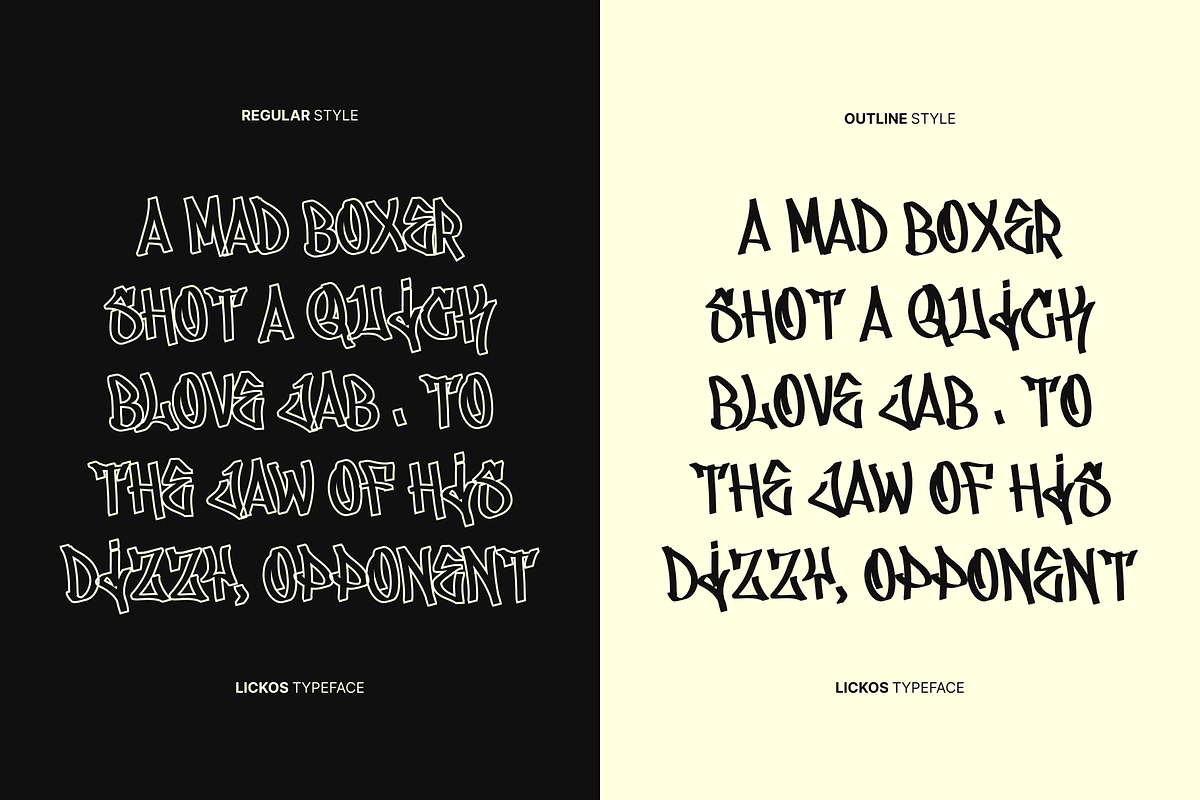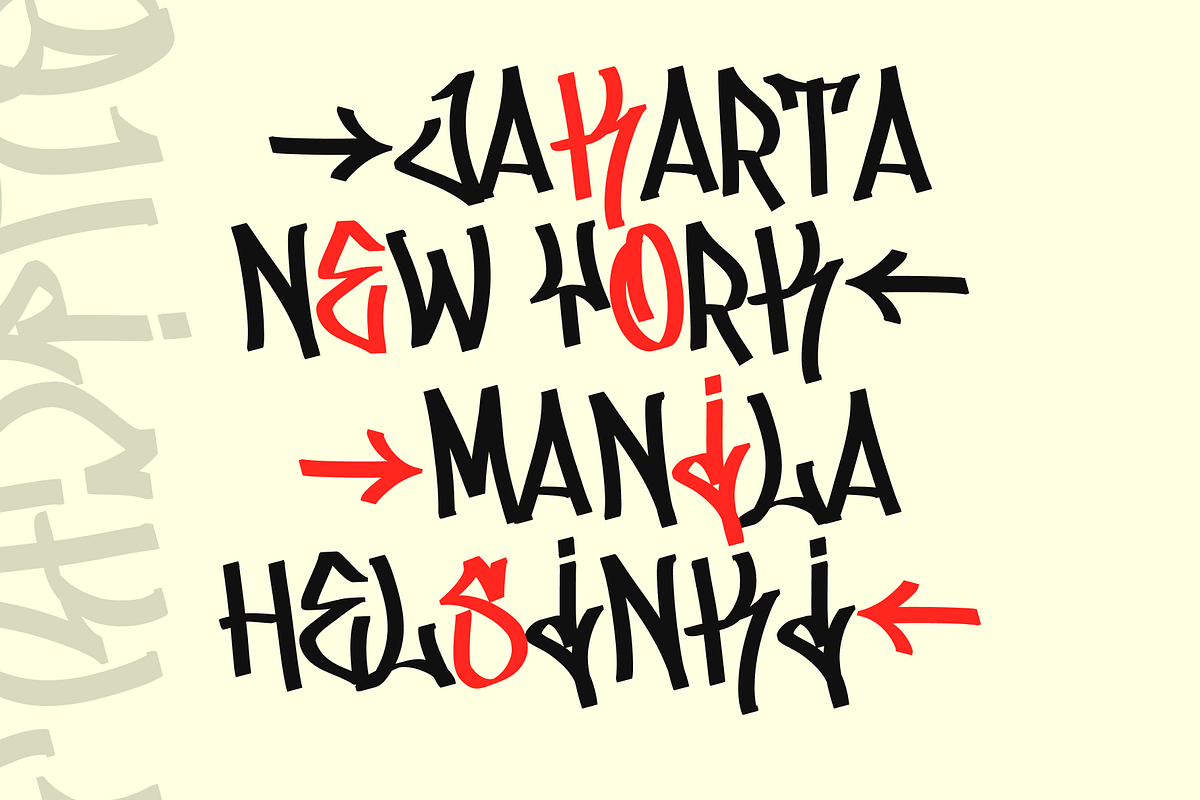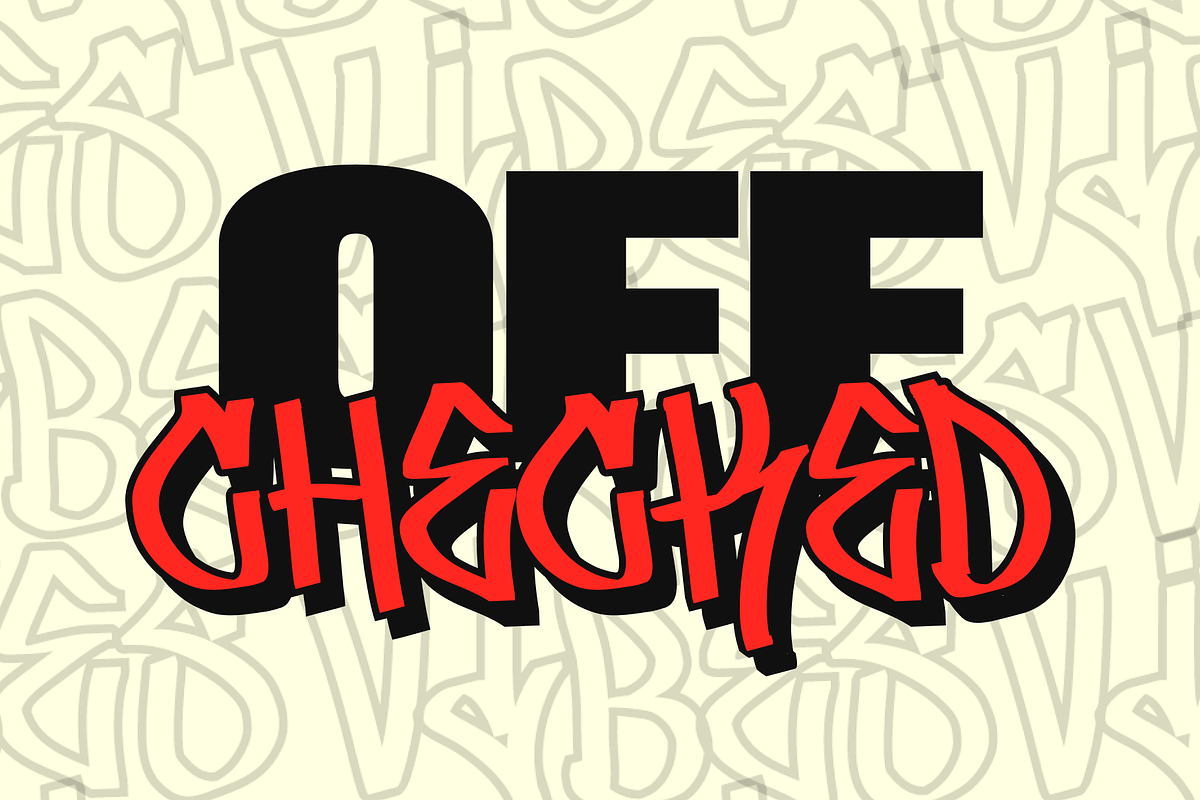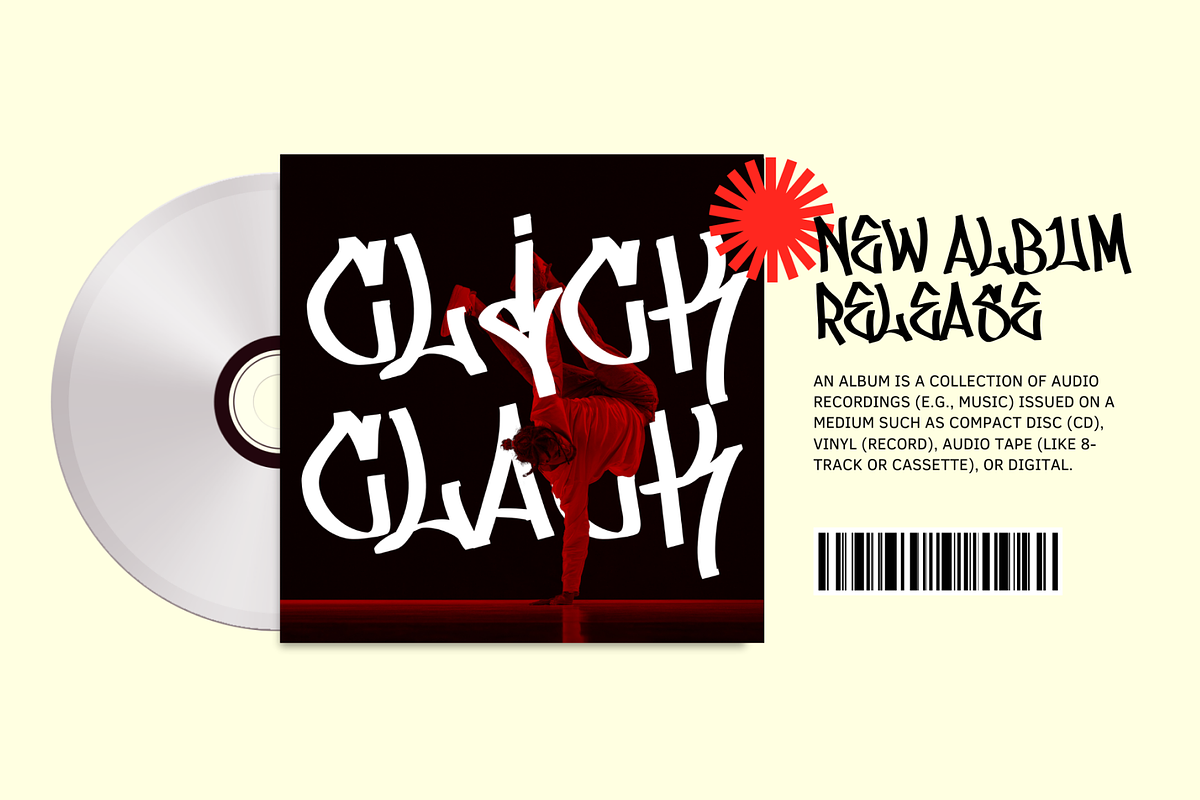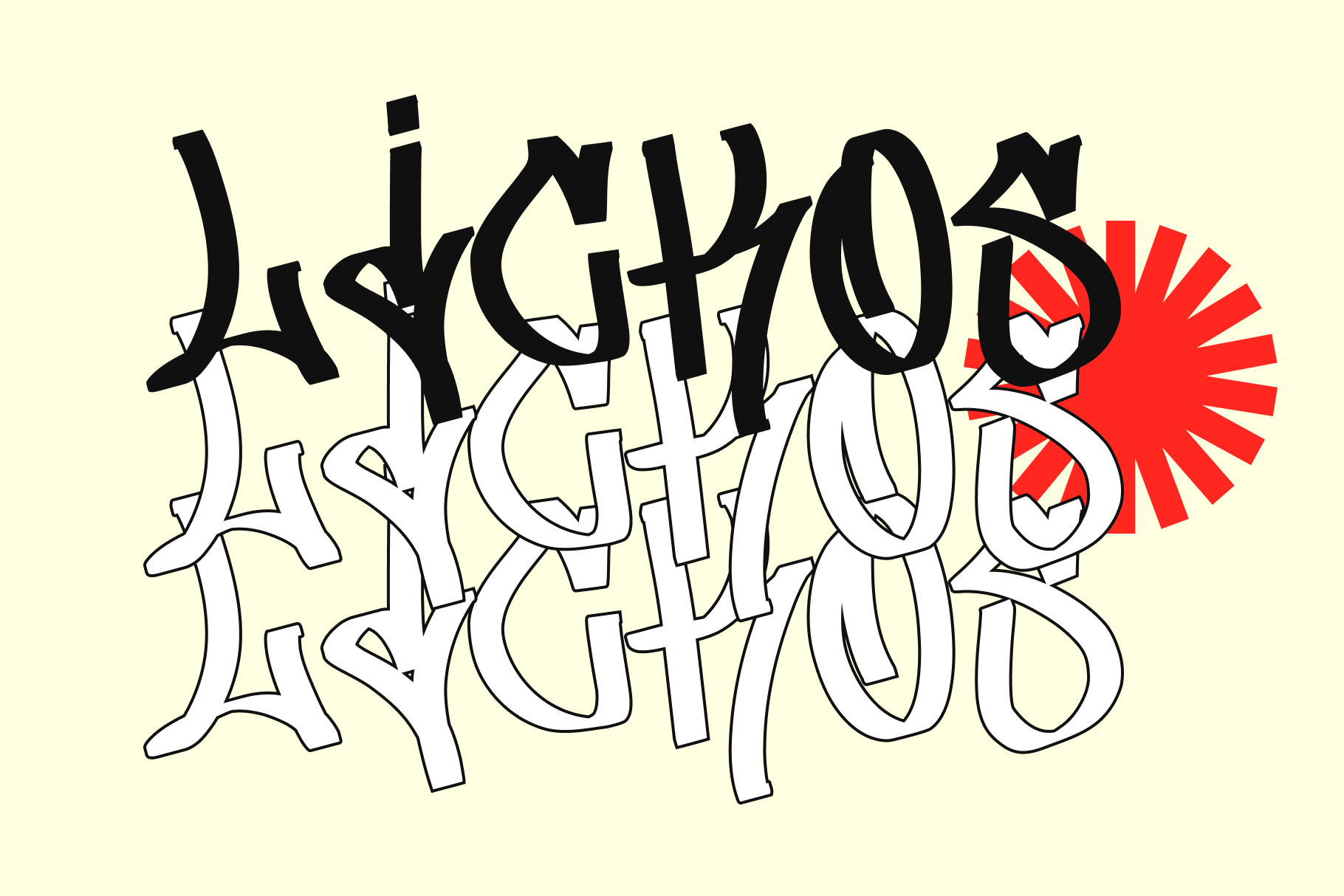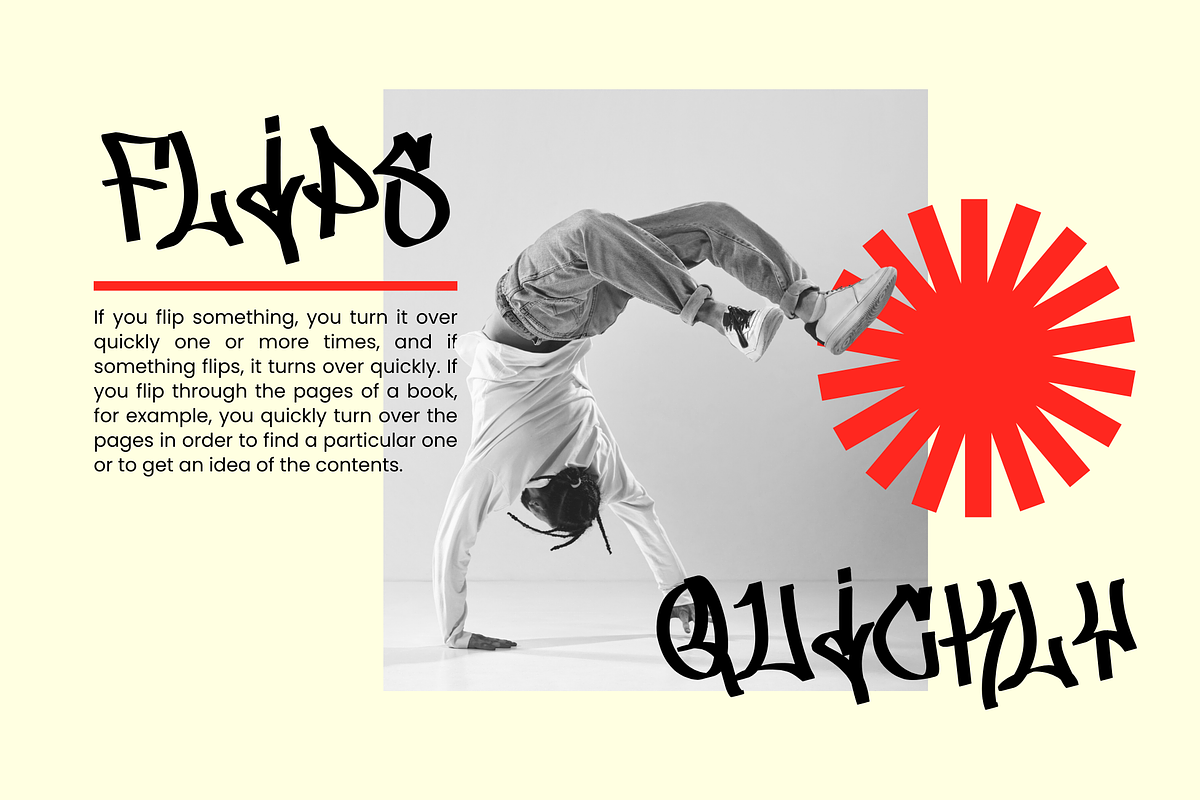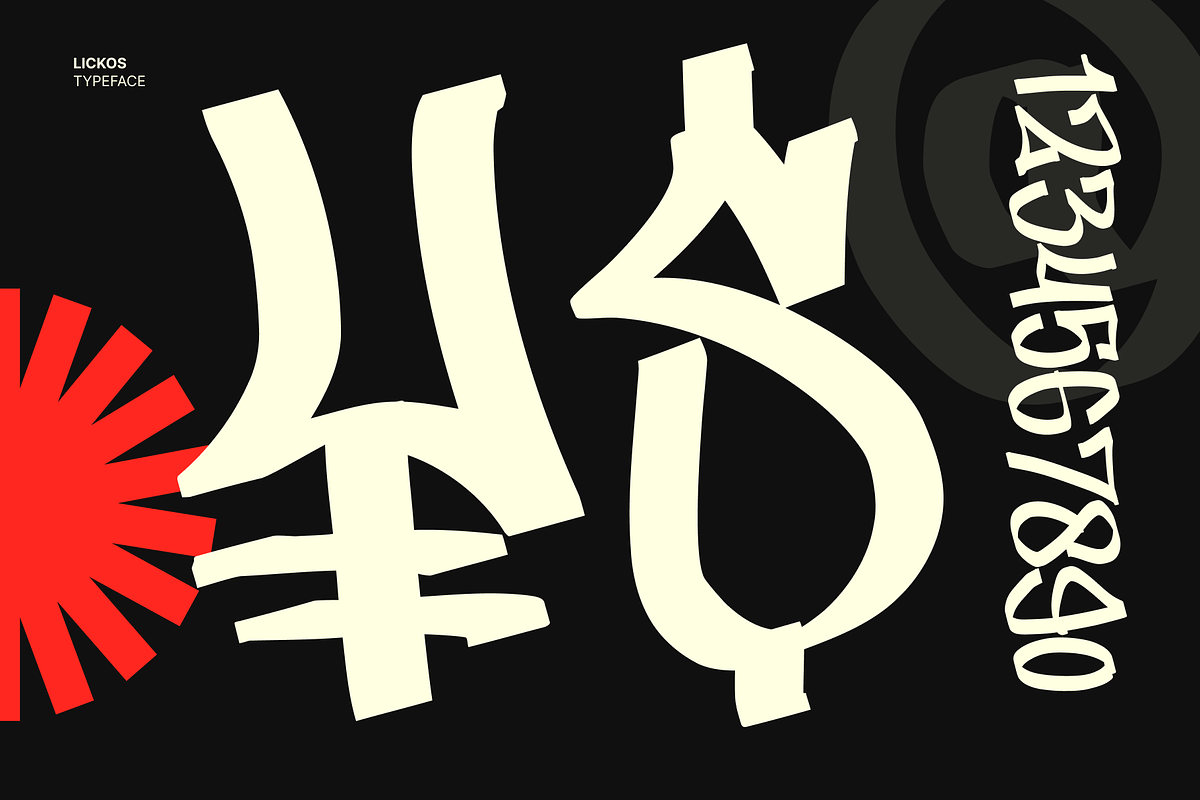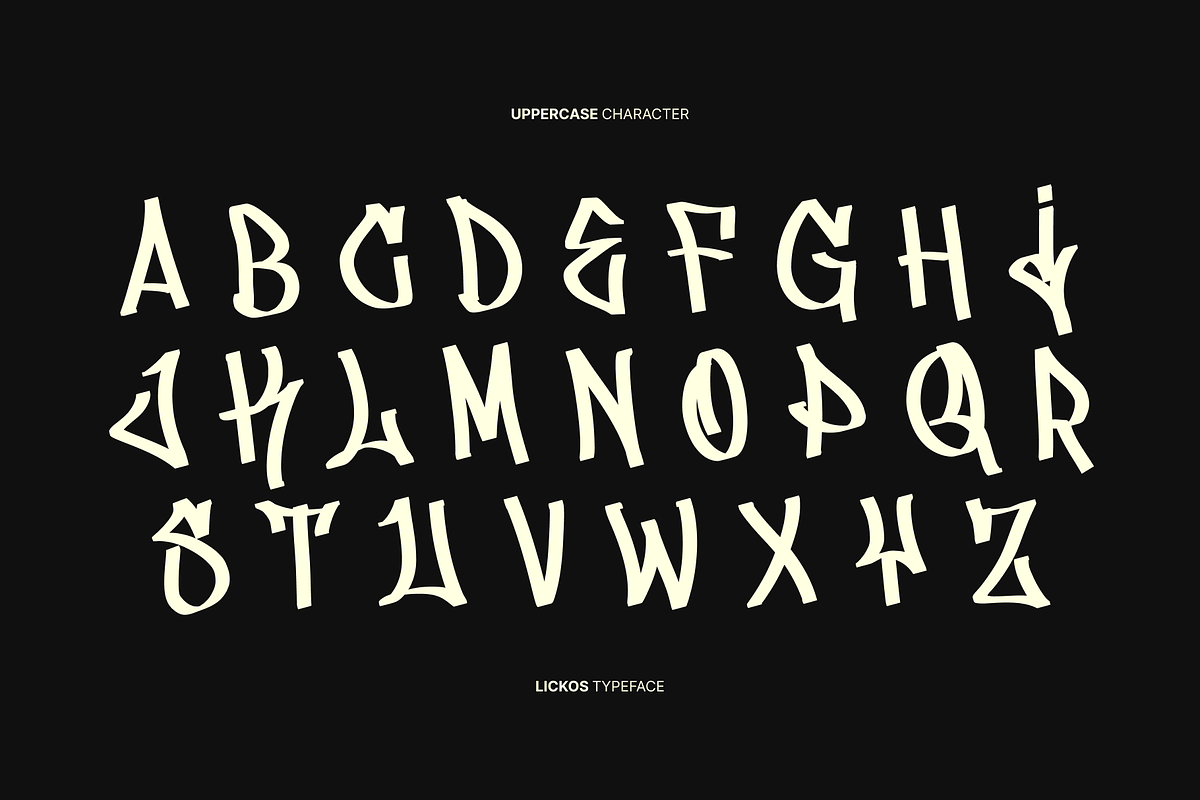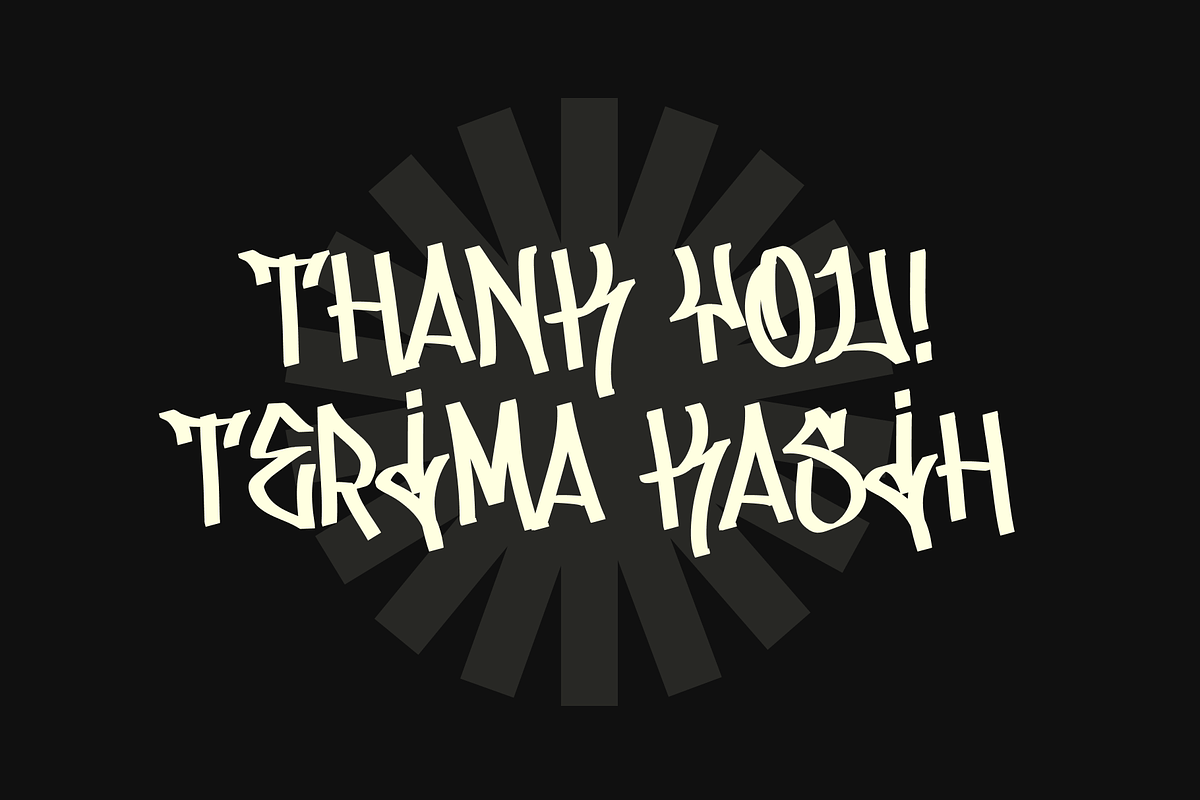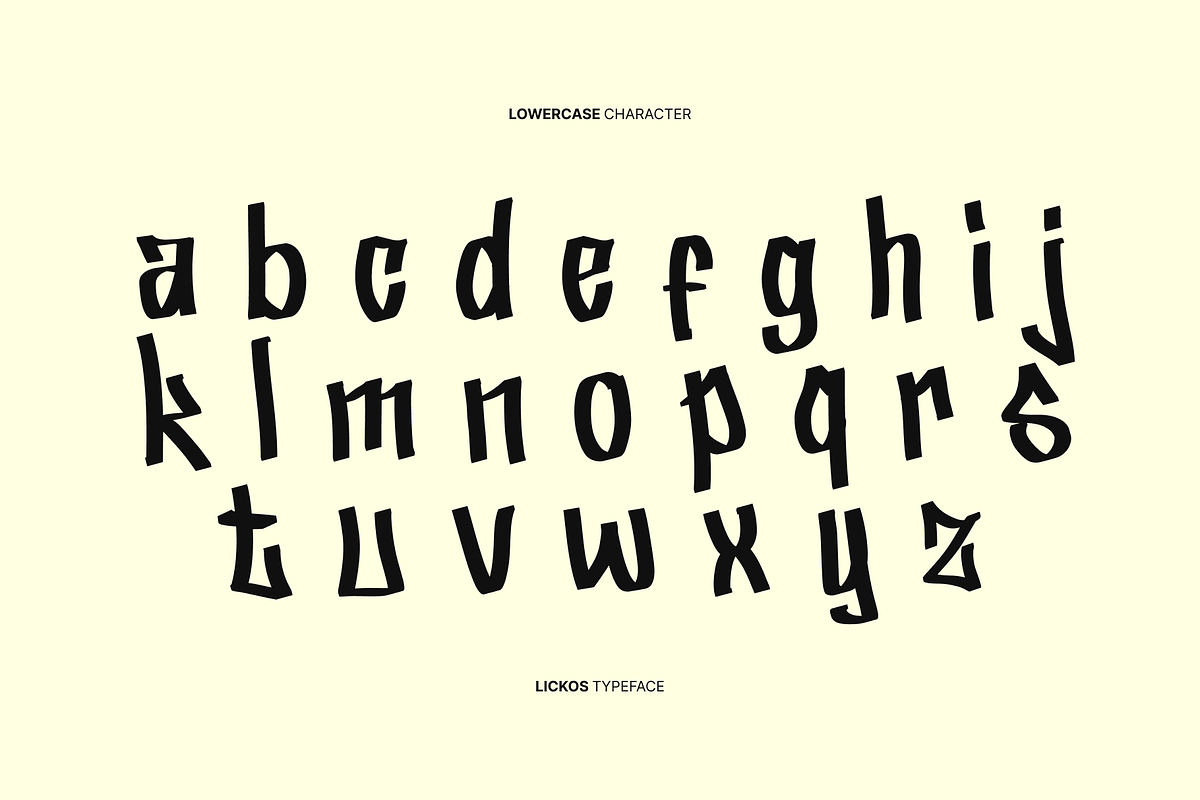
Lickos Graffiti Typeface
Lickos is the newest typeface with a tagging graffiti style. The entire typography has been designed to work on large sizes. This font ideal for designing merchandise, social media, marketing posts, product packaging & branding projects. Lickos supports uppercase, lowercase, numerals and punctuation.